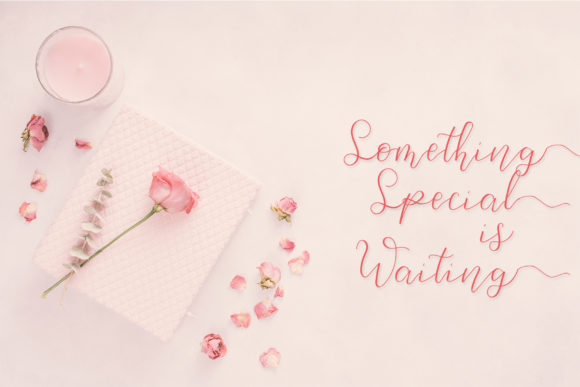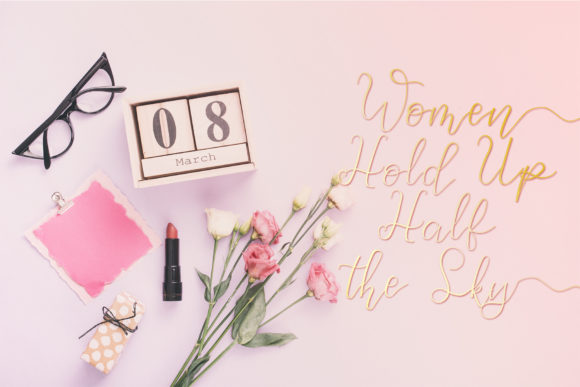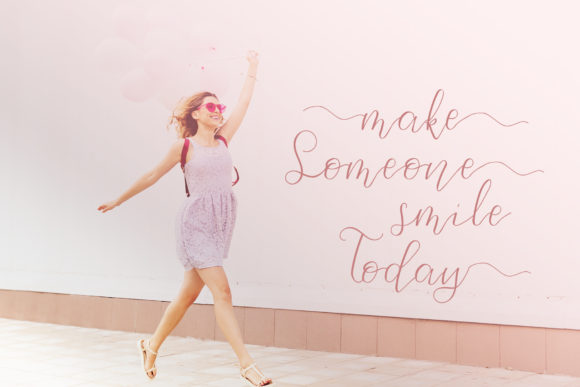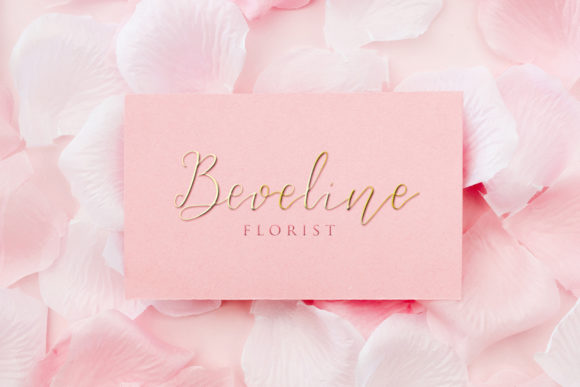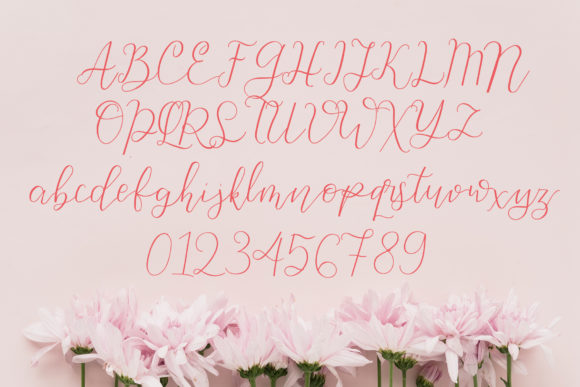
Beauty Flowers Font
About Beauty Flowers Font
The Beauty is a lovely script font. It has an elegant look and is perfect for cards, social media posts, quotes, branding, and much more!